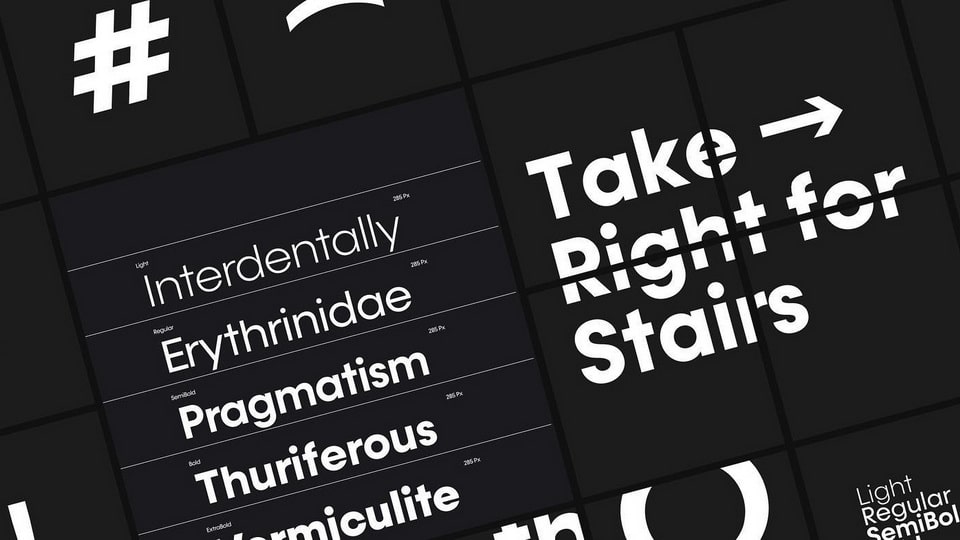
Download Sloth font, a bold, thick sans serif typeface with edgy tail flicks, geometrical letterforms and small stroke contrast. Sloth is versatile font and can be successfully used in magazines, posters, branding, websites and so on.